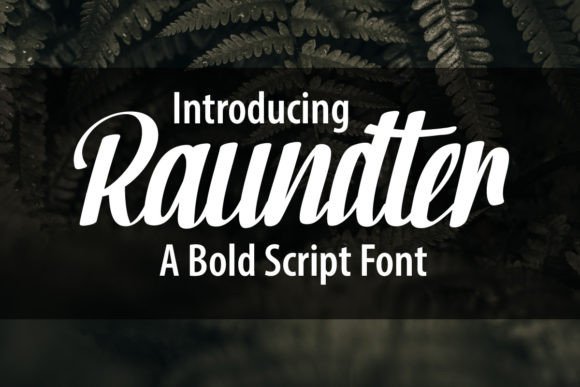
Introducing Raundter Font, the captivating script font that will add a touch of elegance and personality to your creative projects.
With its beautiful curves and fluid strokes, Raundter is perfect for creating logos, posters, stickers, jerseys, invitation cards, brochures, and more. Its bold and eye-catching style will make your designs stand out from the crowd.
Born from the creative minds at IHD.STD, Raundter is a font that exudes sophistication and charm. Its unique design is a fusion of classic and modern elements, making it suitable for a wide range of projects.
Whether you're a graphic designer, a brand identity specialist, or simply someone who loves beautiful typography, Raundter Font is the perfect choice for you. Its versatility and charm will add a touch of magic to your designs.
Here's why Raundter Font is the perfect choice for your creative needs:
1. **Brand Identity:** Raundter's distinctive style makes it an ideal choice for creating logos and brand identities that leave a lasting impression.
2. **Poster Perfection:** With its bold and commanding presence, Raundter is perfect for creating captivating posters that demand attention.
3. **Sticker Statement:** Add a touch of personality to your stickers with Raundter's playful and energetic style.
4. **Jersey Flair:** Elevate your sports jerseys with Raundter's dynamic and sporty vibe.
5. **Invitation Elegance:** Create elegant and inviting cards with Raundter's sophisticated and refined style.
6. **Brochure Beauty:** Craft brochures that captivate and inform with Raundter's versatile and engaging design.